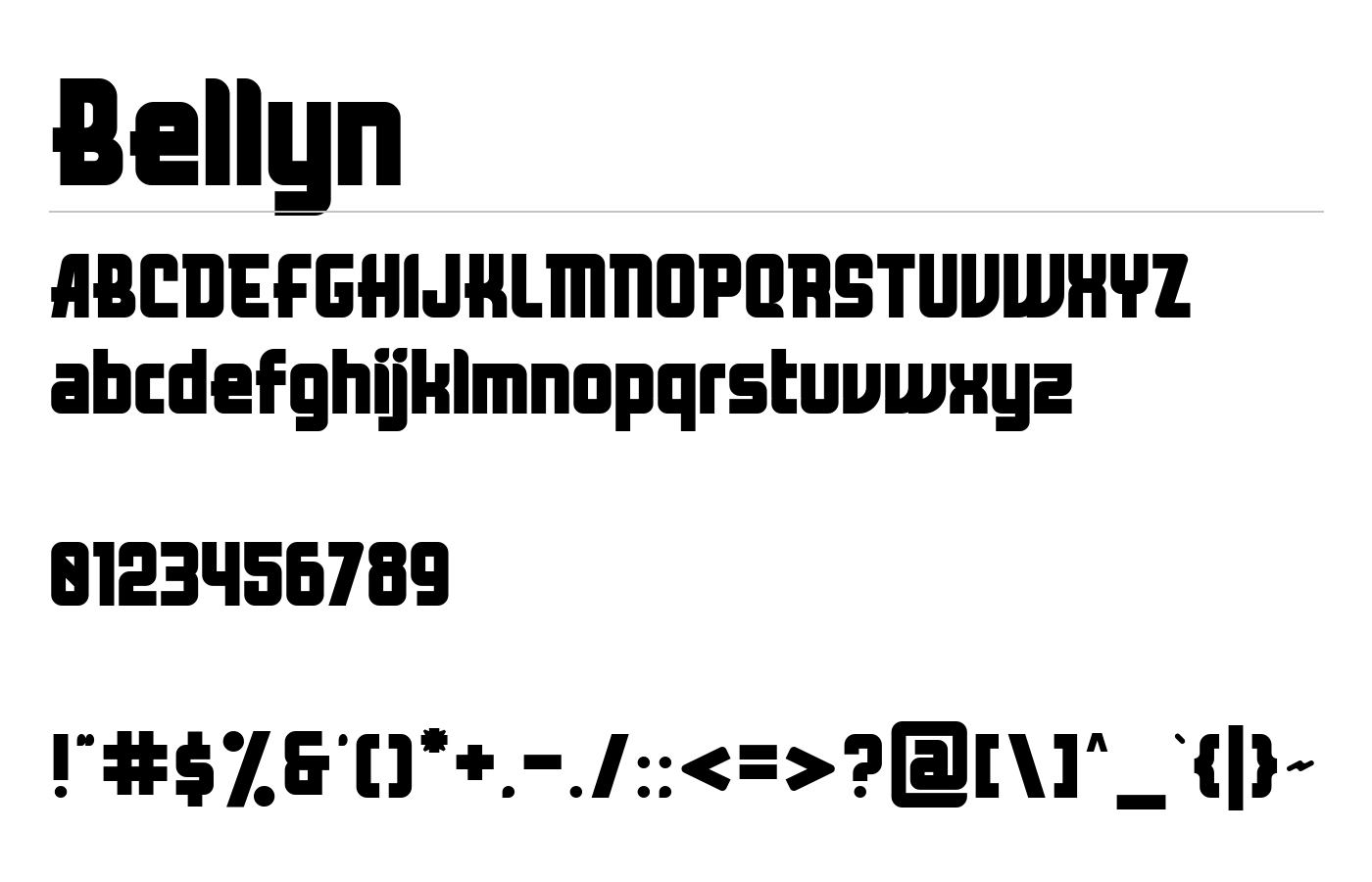
Bellyn is a bold, condensed sans serif font with a strong, modern presence and slightly squared letterforms. Its high stroke contrast and sturdy shapes make it ideal for striking headlines, logos, and branding that require an assertive, confident look. This font works well where you need impactful, urban-inspired typography that stands out in both digital and print formats.
Bellyn Font
About Bellyn Font